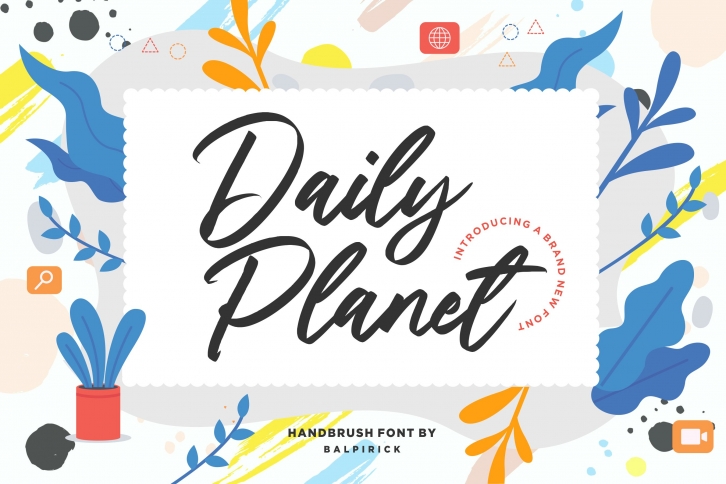
Daily Planet Handbrush Font Download
Daily Planet Handbrush is a trendy and unique font with an authentic style. It was designed by Balpirick and it's a great choice for creative people who need such a font. It was released on April 17, 2020 and the file size is 4.76 MB. Daily Planet Handbrush will add an organic vibe to any design idea!